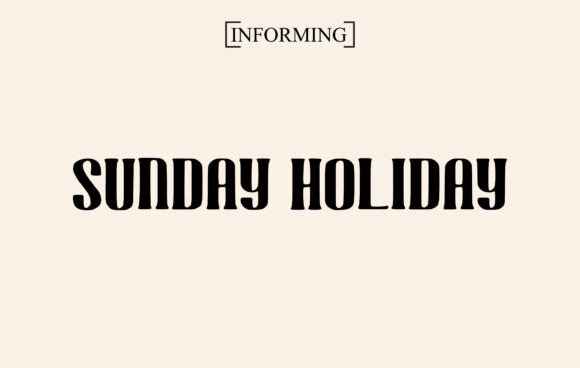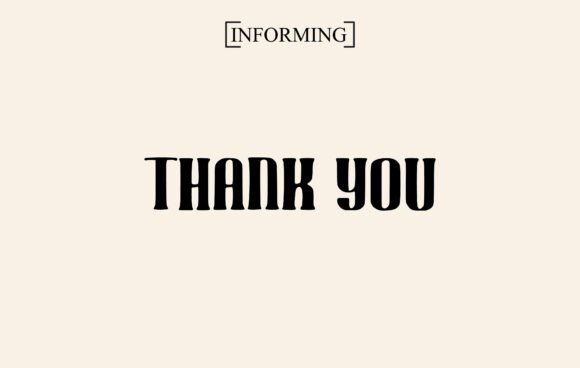
Introduction to Salsabilla Font
Have you ever stared at a blank canvas, wondering which font would bring your creative project to life? For designers, finding the perfect font can be a daunting task. But what if you stumbled upon a true favorite – one that elevates your design and makes it stand out from the crowd? Enter the Salsabilla Font, a versatile and high-quality font that’s sure to become a staple in your design arsenal.
Whether you’re working on a magazine headline, a t-shirt design, or a social media post, the Salsabilla Font is an excellent choice. Its legibility and aesthetic appeal make it perfect for both title and body text. Plus, its transparent background ensures that your design remains crisp and clear, even against complex backgrounds.
Key Features of Salsabilla Font
- High-quality design: The Salsabilla Font is a high-quality design resource suitable for various creative projects.
- Transparent background: The Salsabilla Font features a transparent background, allowing for easy customization and versatility in design.
- Unique characteristics: The font’s unique characteristics, including its playful and whimsical style, make it perfect for adding a touch of personality to any design.
- Design versatility: The Salsabilla Font is a highly versatile design resource, suitable for a wide range of creative projects, from logos and branding to packaging and advertising.
Honest Review: Salsabilla Font
I recently stumbled upon the Salsabilla Font while searching for a high-quality font to enhance my creative project. As a designer, I’m always on the lookout for free design resources that can elevate my work. The Salsabilla Font definitely caught my attention, so I decided to give it a try.
- ✨ High-quality typography: The Salsabilla Font has a beautiful, elegant design that’s perfect for formal and informal projects.
- ✨ Transparent background: This feature allows me to easily use the font on various backgrounds without any issues.
- ⚠️ Limited font styles: While the Salsabilla Font is beautiful, it’s limited to a single style, which might not be suitable for projects requiring multiple font styles.
Overall, I’m impressed with the Salsabilla Font, and I think it’s an excellent addition to any designer’s toolkit. While it has some limitations, its high-quality typography and transparent background make it a valuable resource for creative projects.
Tips for Getting the Most Out of Salsabilla Font
To get the most out of the Salsabilla Font, use it for high-quality, creative projects that require a unique and eye-catching design. The font’s transparent background makes it perfect for overlaying on images or using as a design resource for creative projects.
The Salsabilla Font is ideal for free download and use in various design projects, including social media graphics, blog posts, and presentations. Its unique style and transparent background make it a popular design resource for creative professionals and hobbyists alike.